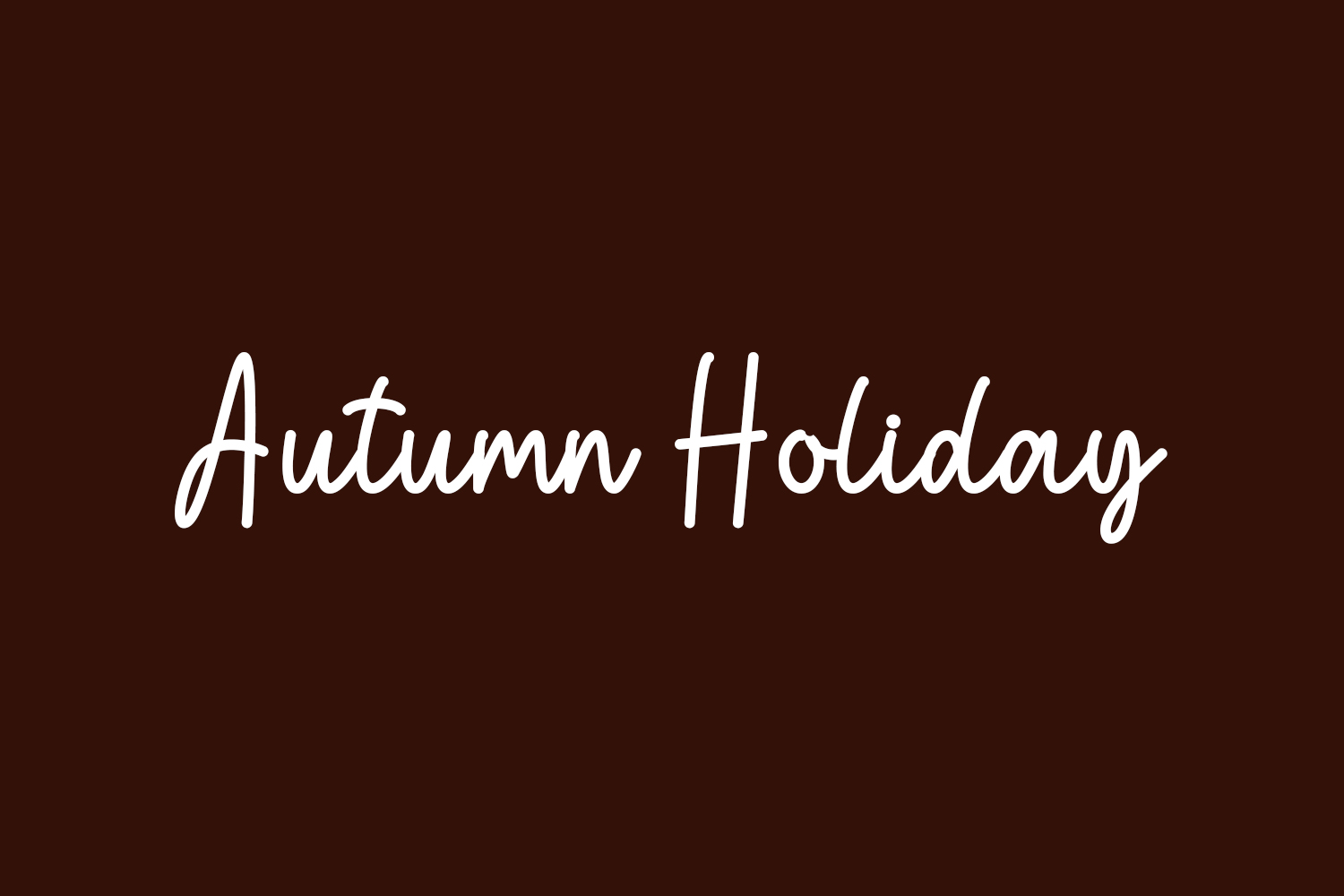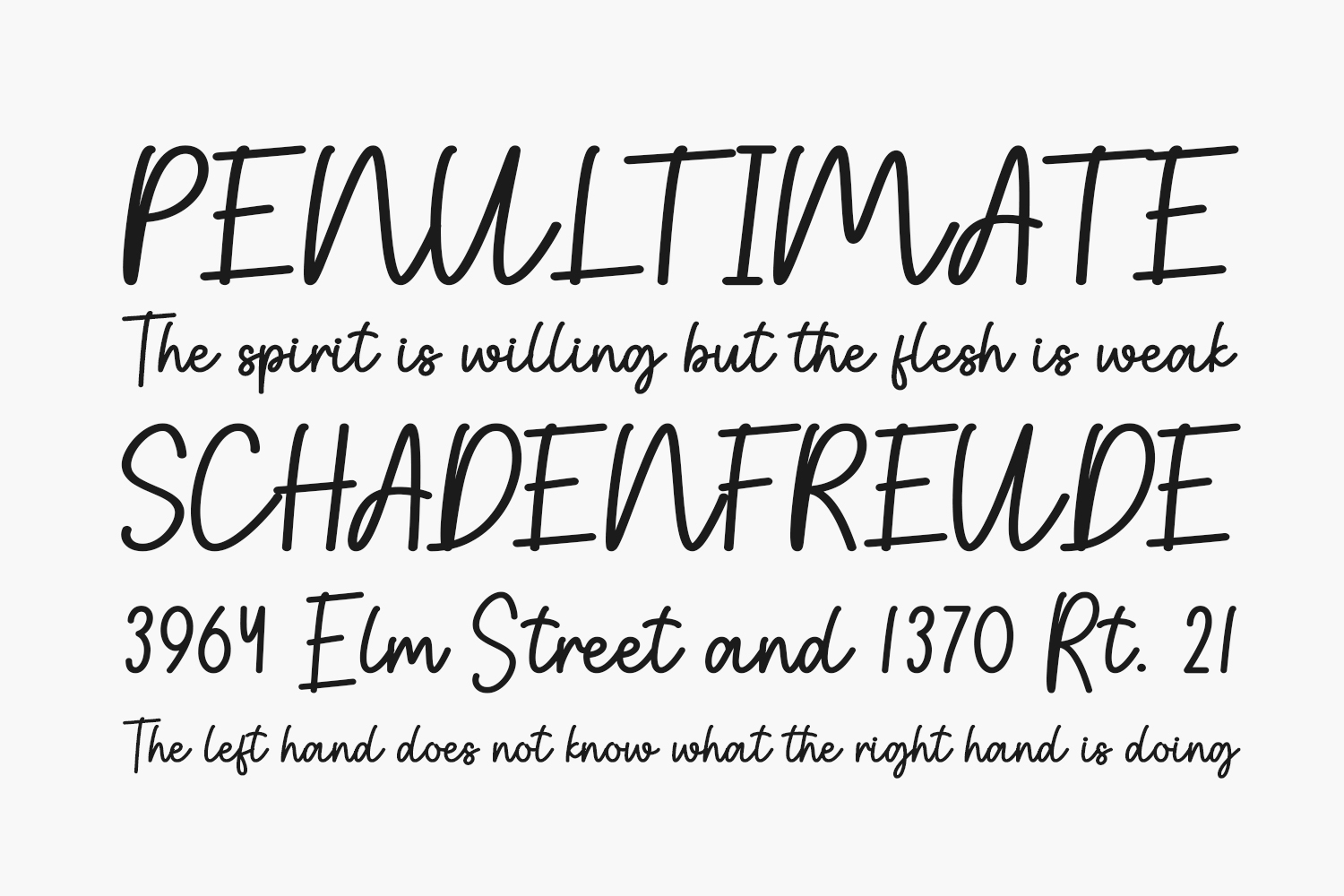
Autumn Holiday Free Font is an elegant script font. Not too thin and not too thick, balanced and varied, this font was designed to enhance the beauty of your projects. Autumn Holiday Free Font was designed by Wahyu studio and is free for personal use only. Please purchase the full version for commercial use.